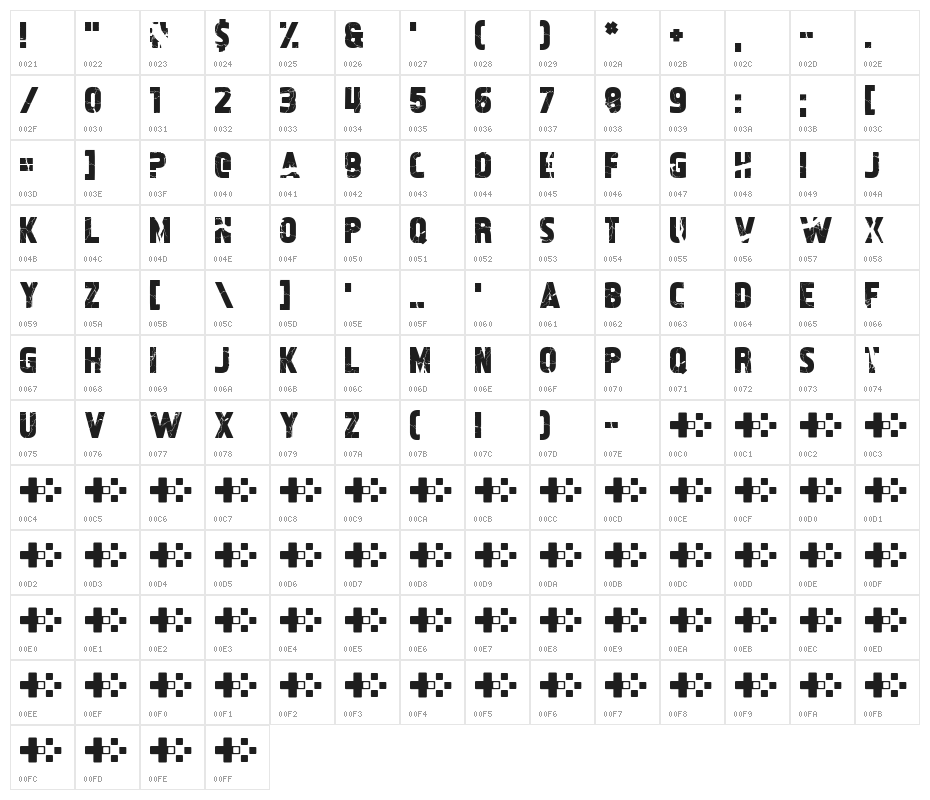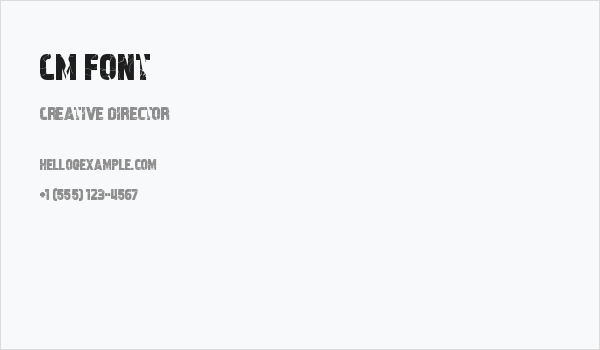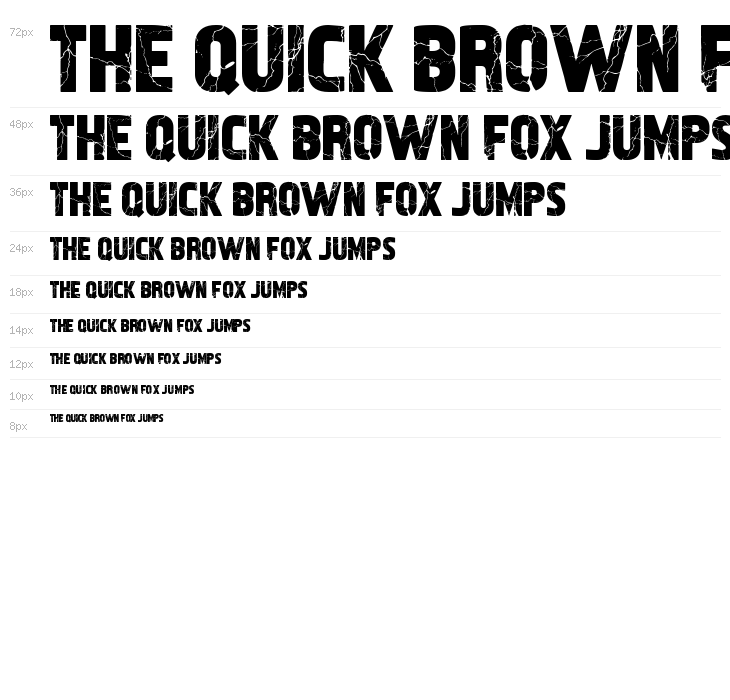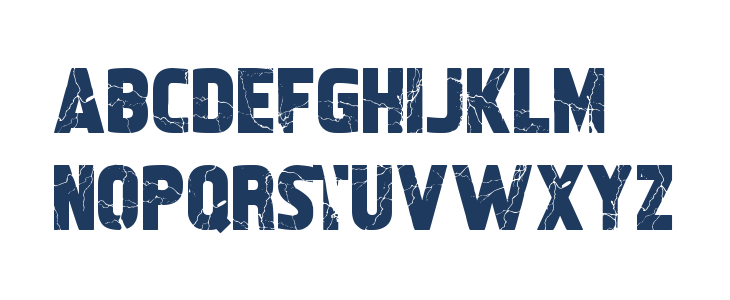
CM Font Font
CM Font Description
This font features a bold, distressed style with a rugged, weathered appearance. The characters are blocky and robust, with a textured effect that resembles cracks or scratches, giving it a gritty, urban feel. The uppercase and lowercase letters maintain a consistent width, contributing to a uniform look across the text. The numerals and special characters share the same distressed aesthetic, ensuring a cohesive design throughout. This font's unique style makes it stand out, perfect for projects that require a strong, impactful visual presence.
CM-FONT UPPERCASE
CM-FONT LOWERCASE
CM-FONT OTHER CHARS
| Proposed Projects | Ideal for posters, album covers, branding for edgy products, or any design needing a bold, gritty aesthetic. |